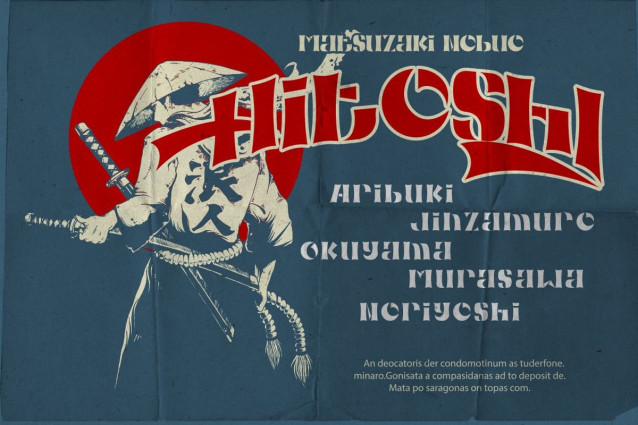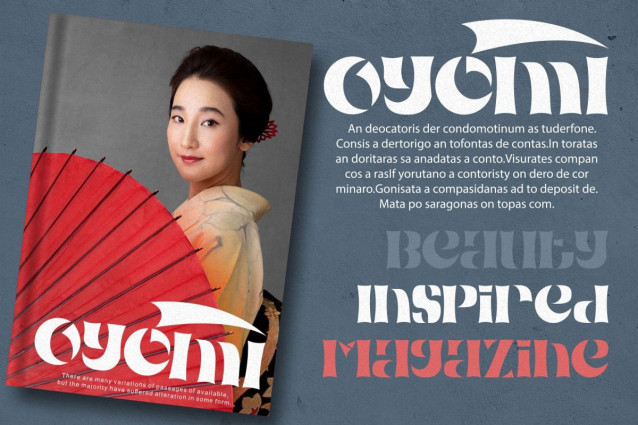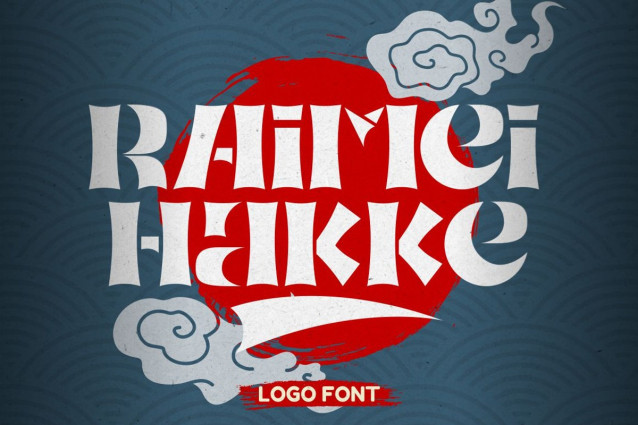
Raimei Hakke Font
Raimei Hakke Font is a font inspired Japanese style and the only fonts with shapes and styles that exactly resemble the Japanese characters & this font is easy to read and can be applied to all media and all can use this font without exception
This font is suitable for your projects such as logos, wedding invitations, branding, landing pages, apparel, posters, headlines, greeting cards, invitation cards, social media, crafting, quote and more.